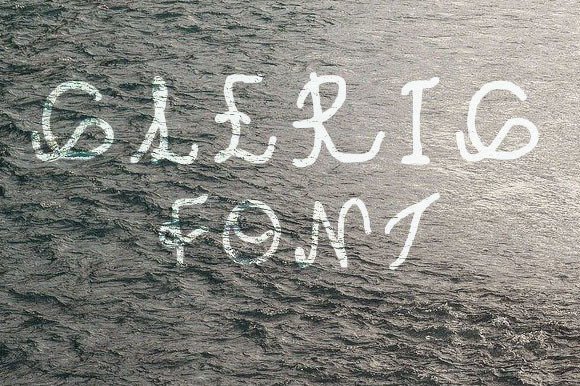
Cleric Font
About Cleric Font
“Cleric” features handwritten characters that exude a sense of nonchalance and chill vibes. This font is ideal for creators who embrace a messy yet stylish aesthetic and aren’t overly concerned with achieving perfection in their designs.
The charm of “Cleric” lies in its ability to convey a sense of casualness and relaxed vibes through its handwritten characters. The font’s letters possess an effortless and carefree quality that adds character and uniqueness to your designs. “Cleric” is a font that allows you to break free from conventional perfection and embrace a more laid-back and artistic approach to your creative work.
This font is perfect for creators who value individuality and want to add a touch of personal style to their projects. Whether you’re designing materials that reflect a rebellious and carefree spirit, creating content that exudes a relaxed and easygoing vibe, or exploring any other design project where a nonchalant and chill aesthetic is desired, “Cleric” provides you with the ideal typography choice.
Incorporating “Cleric” into your design projects will likely result in outcomes that are not only nonchalant and chill but also full of character and authenticity. Its handwritten style and relaxed form make it an excellent choice for creators who seek to break free from conventional design norms and embrace their unique artistic expression. Embrace the nonchalant and chill vibes of “Cleric” in your next project, and watch as it adds a distinct and laid-back flair to your typography and overall design, making them truly one-of-a-kind and memorable.